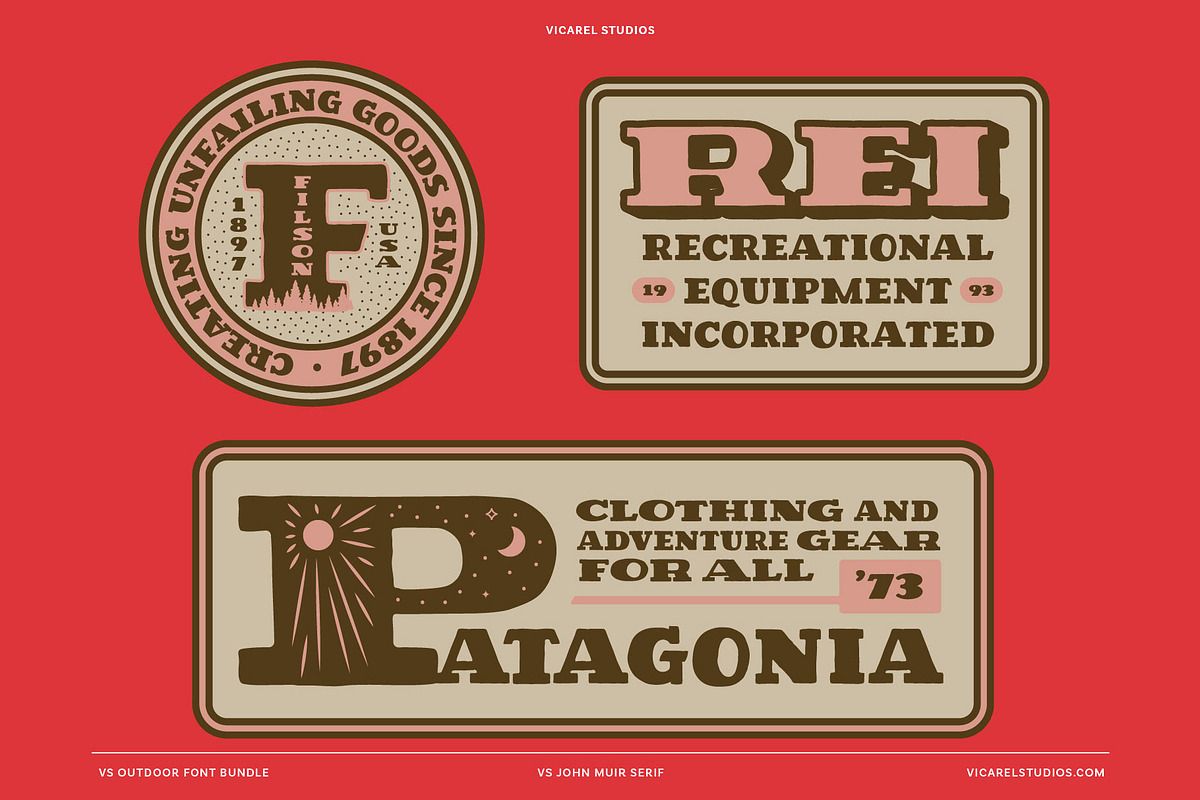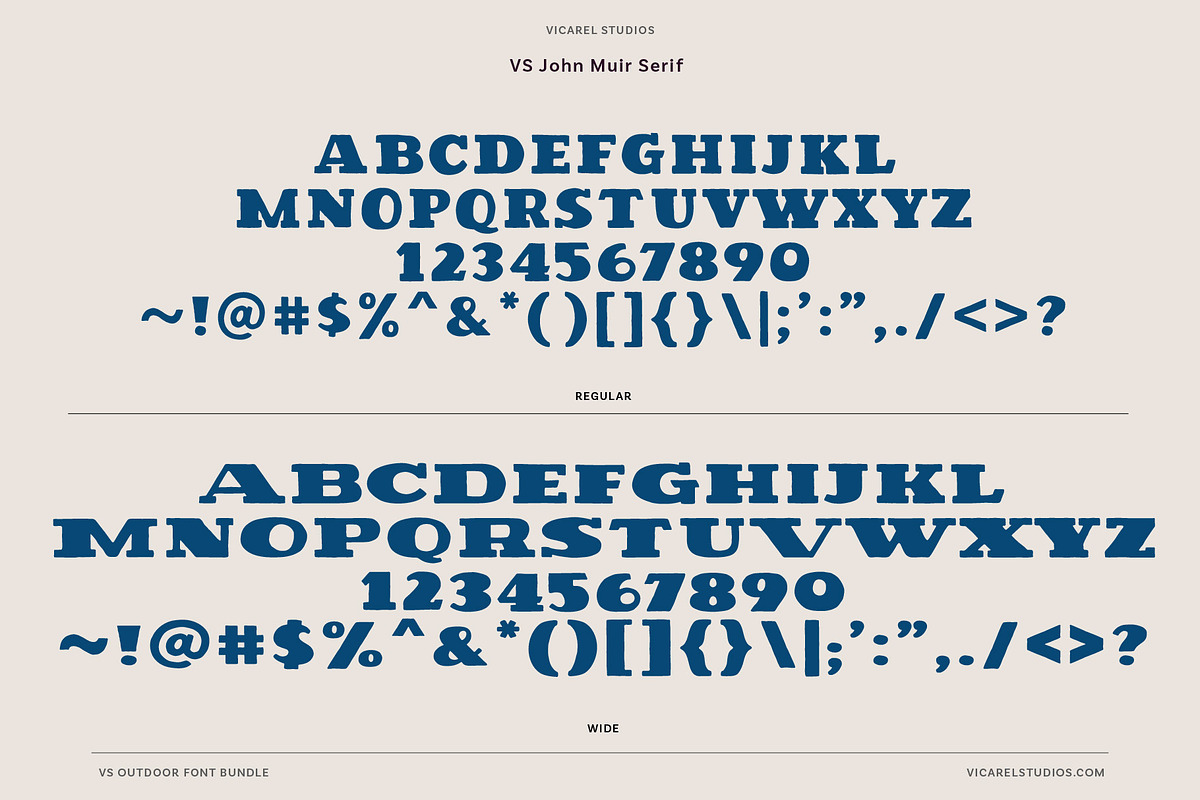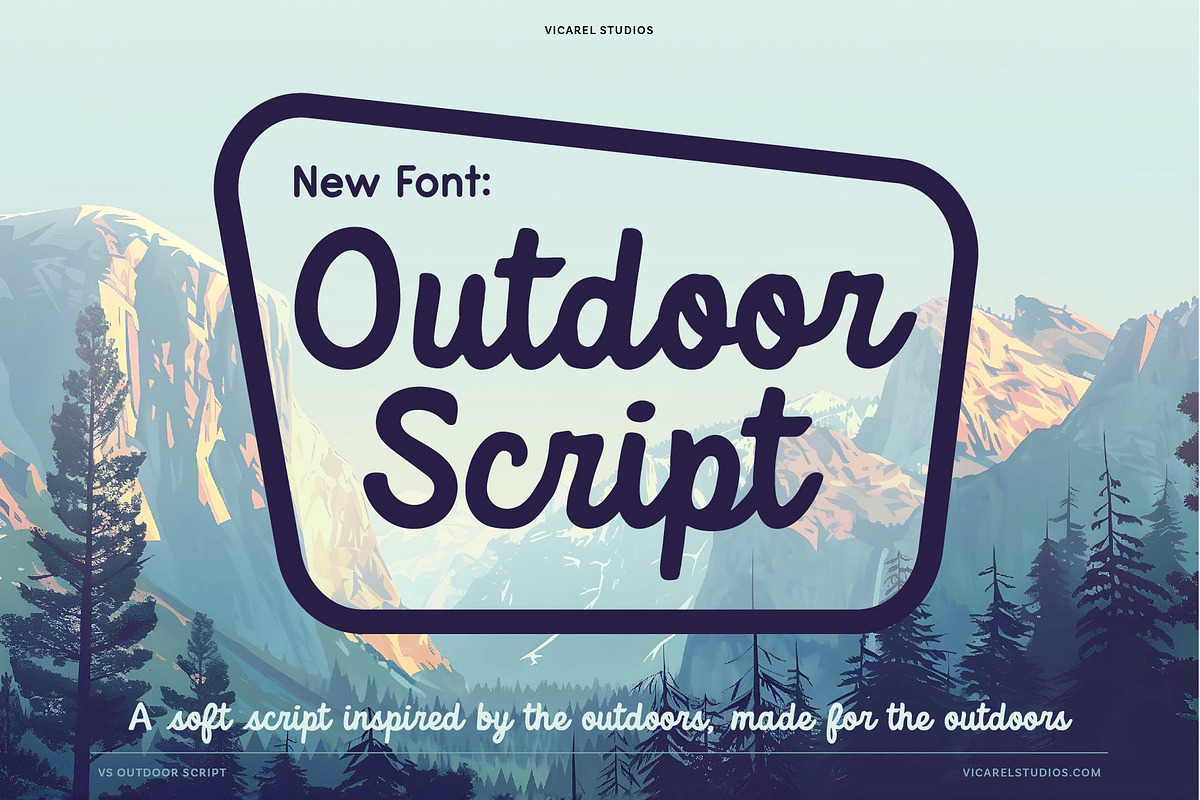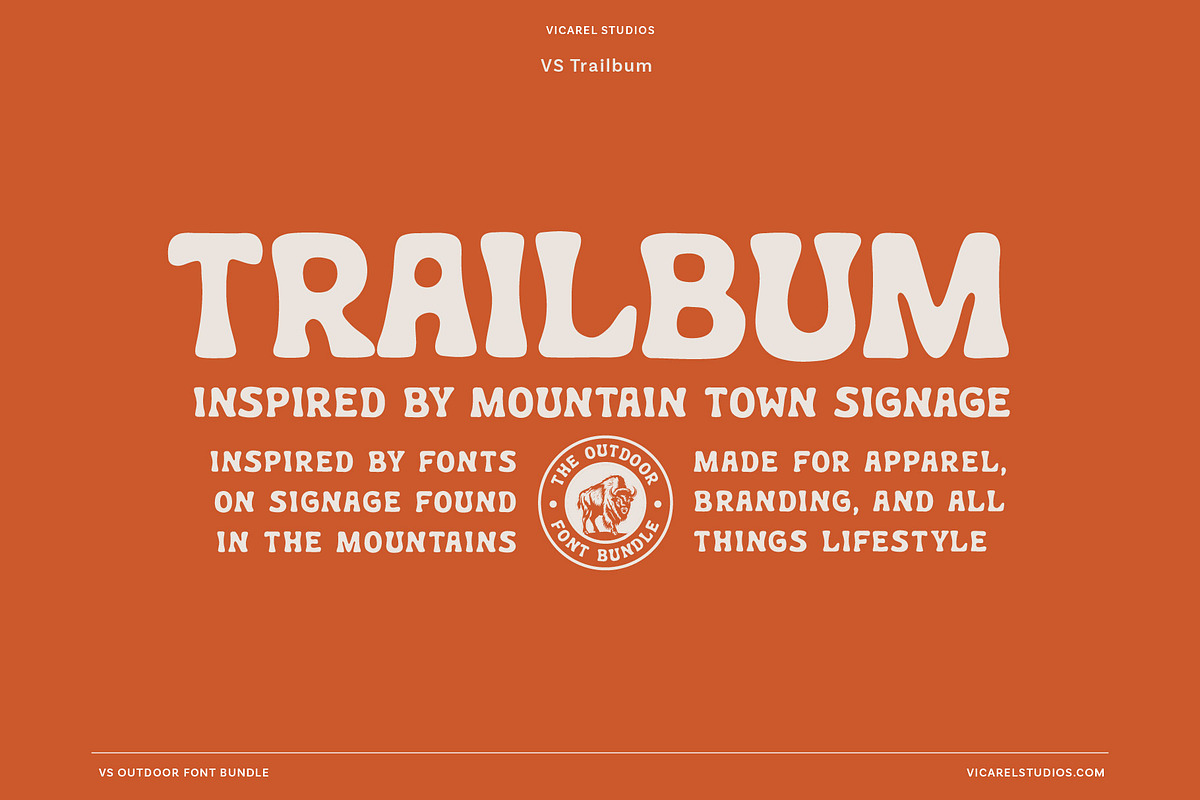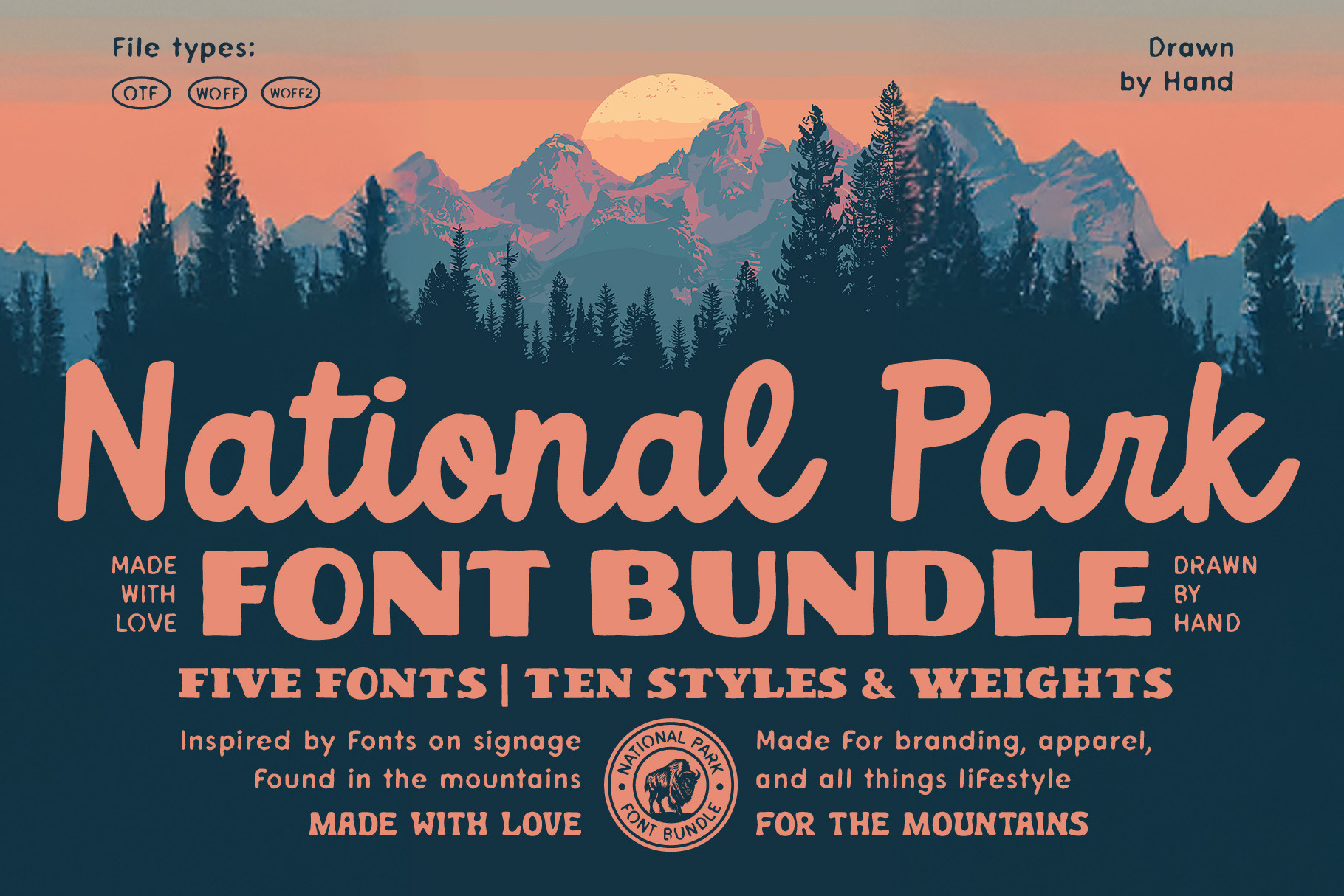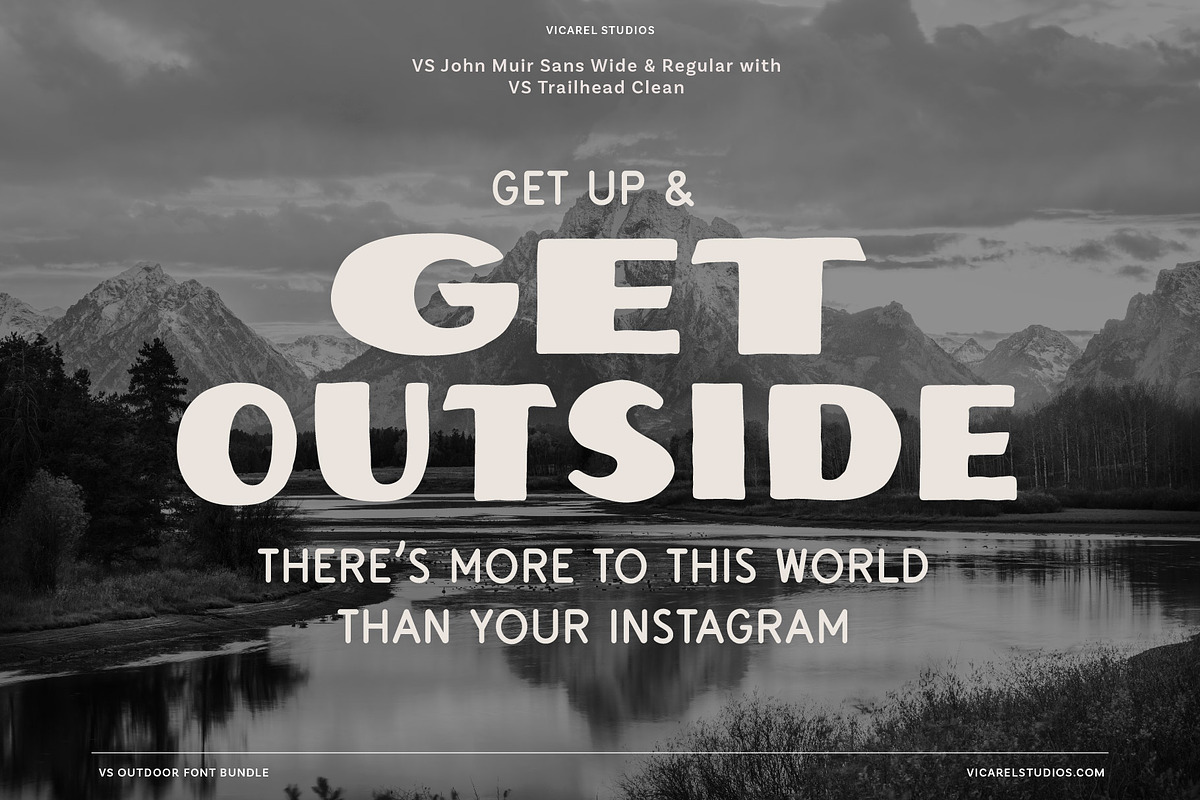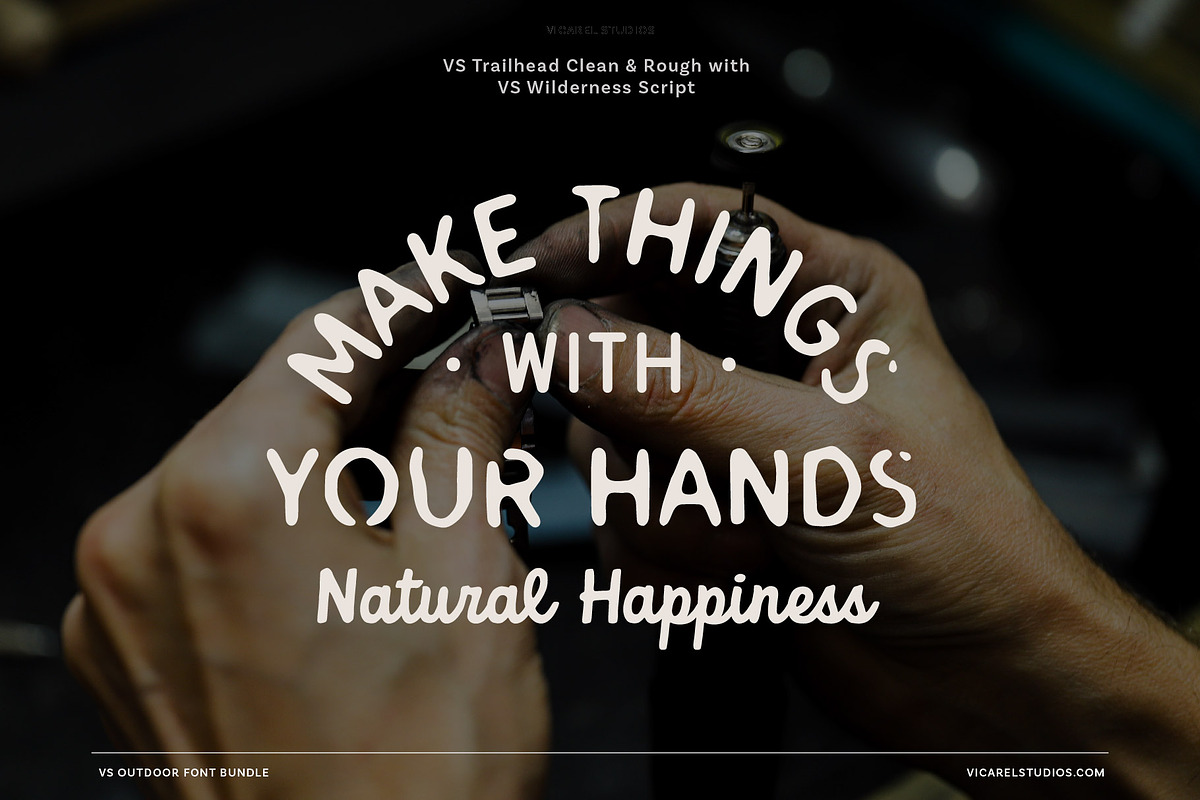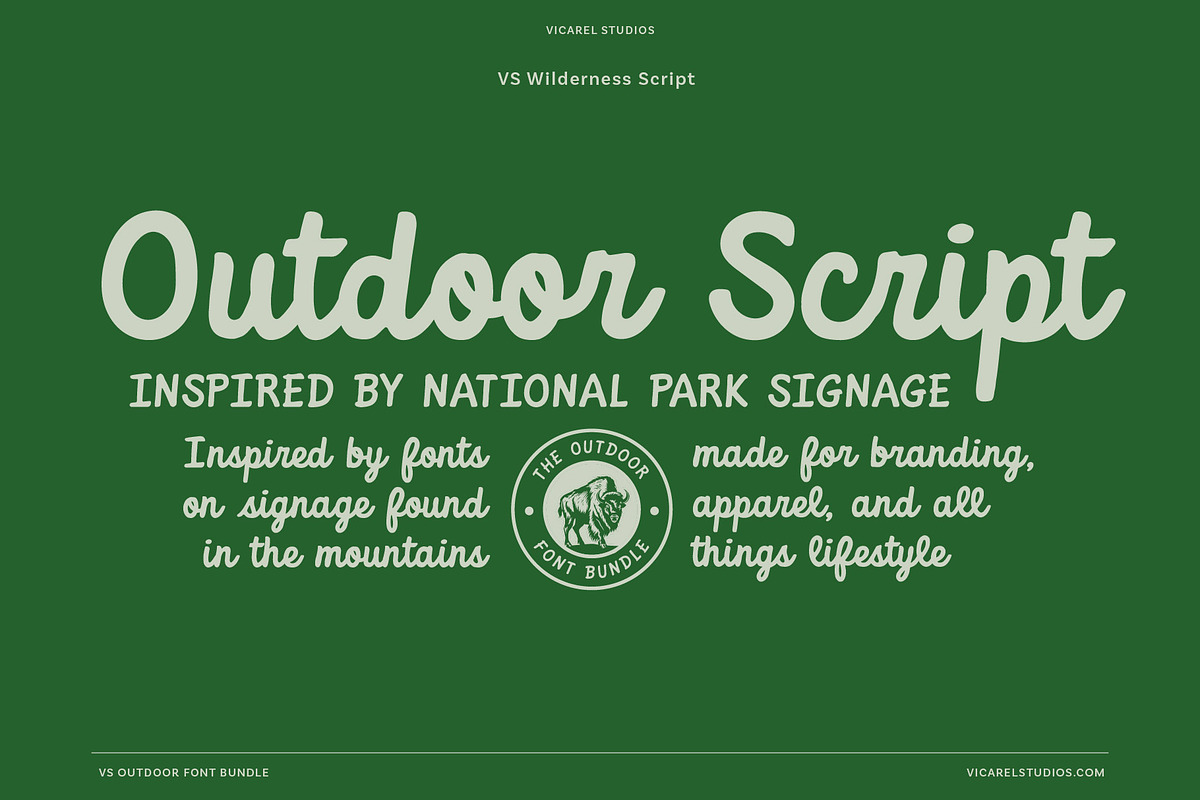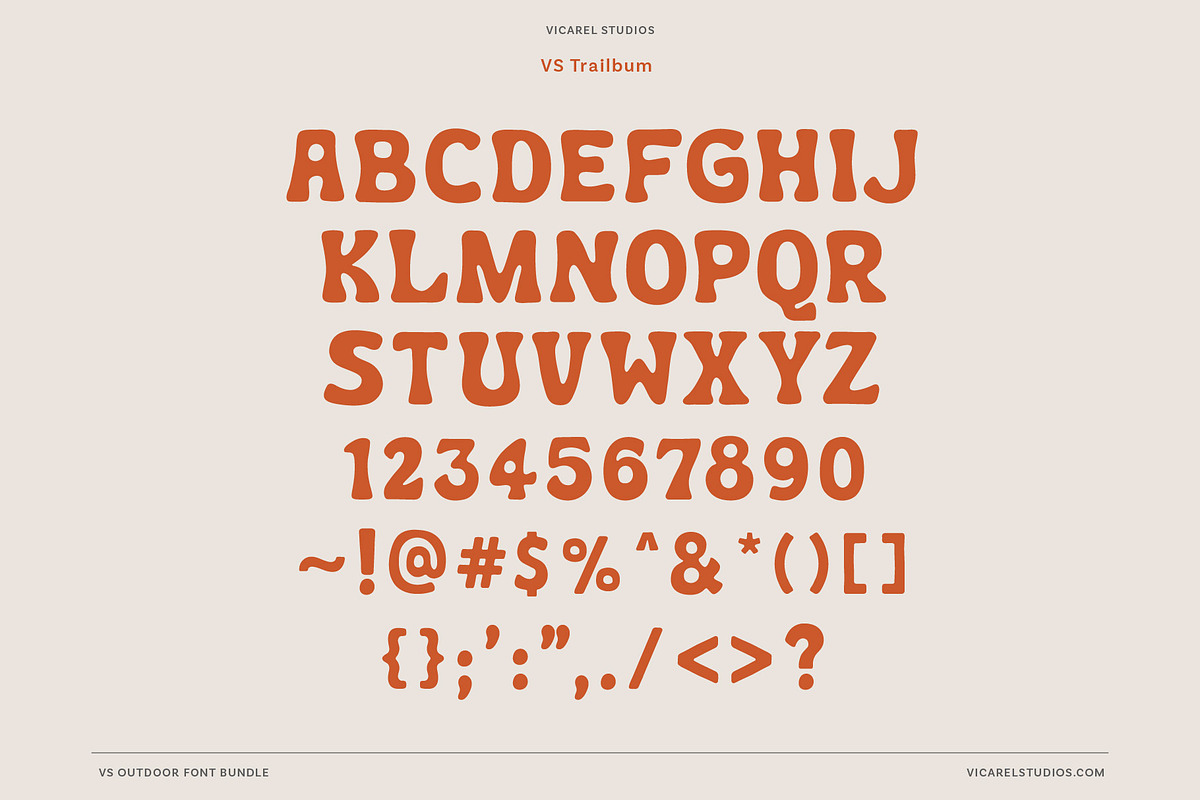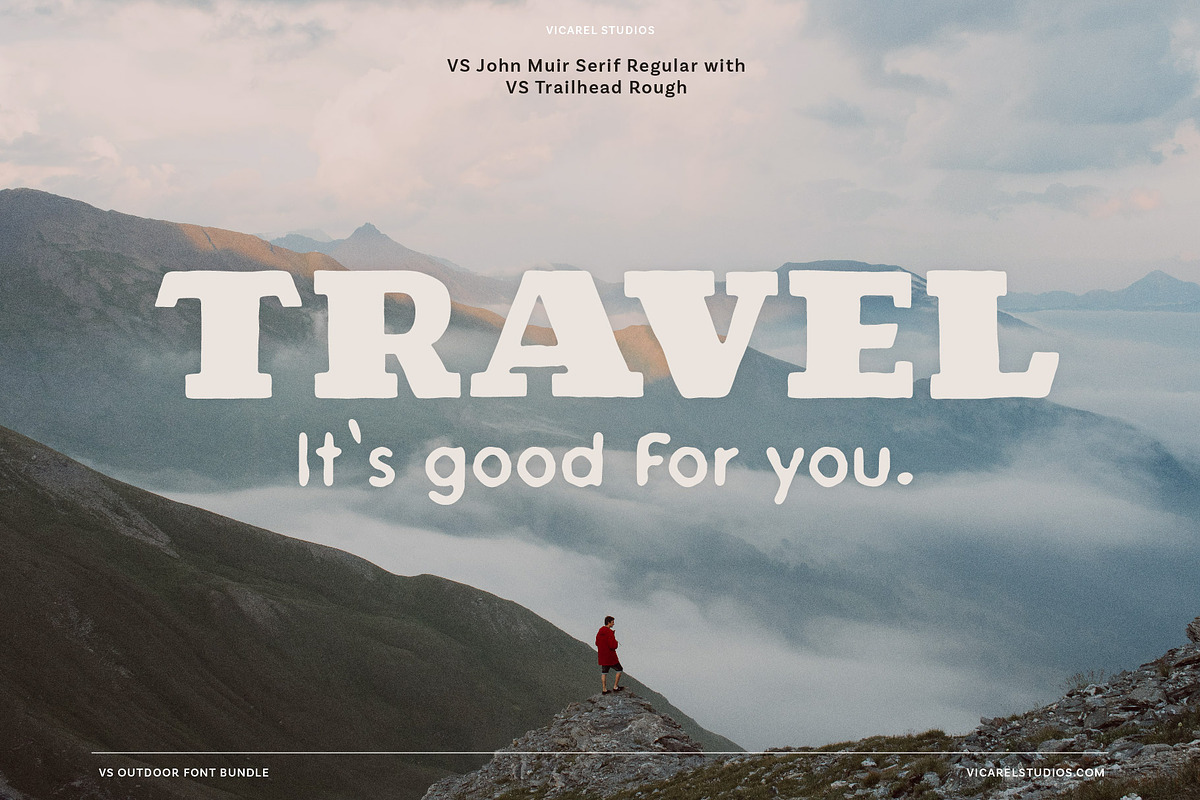
National Park Font Bundle
The Outdoor Font Bundle features five hand-drawn typefaces (with 10 total weights and styles) that work perfectly together. Whether you're designing logos, packaging, merch, or web elements, if you’re looking for a set of fonts inspired by National Park poster fonts, we’ve got you covered.
Included in the bundle are John Muir Sans, Outdoor Script, Trailbum, Trailhead, and John Muir Serif – each font is rooted in nature and crafted by hand. Brining the style of National Park fonts to your finger tips, the Outdoor Font Bundle exudes feelings of adventure, making this bundle the perfect match for outdoor and lifestyle brands, vintage-inspired branding, and any project that needs a touch of rugged elegance.
From logos to posters, these rustic, hand drawn outdoor fonts were designed to complement one another, ensuring a cohesive look regardless of which fonts you mix and match.
- John Muir Sans
- Outdoor Script
- Trailbum
- Trailhead
- John Muir Serif
- Most fonts come with alts, ligatures and glyphs (as described in each individual listing)